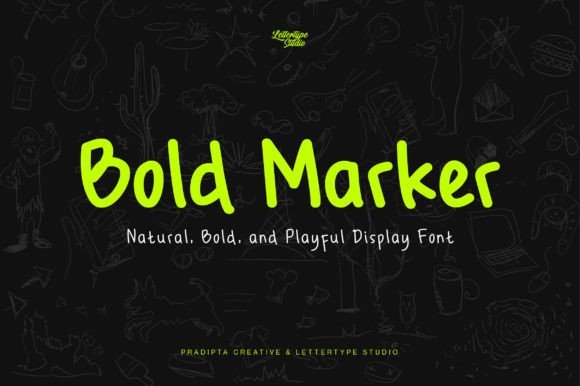
When Words Make a Statement
Have you ever found yourself scribbling down an idea in a notebook, only to have it leap off the page in a way that grabs your attention? That’s the magic of a well-chosen font – and the Bold Marker Font is no exception.
This playful display font is the perfect solution for designers looking to add some personality to their projects. With its casual, bold, and natural vibe, the Bold Marker Font is ideal for anything from headlines and logotypes to apparel and packaging. Whether you’re creating a brand identity, designing an invitation, or crafting an advertisement, this versatile typeface has got you covered.
Bold Marker Font Key Features
- Font Family: A unique, hand-drawn font designed to resemble a bold marker.
- Unique Characteristics: Features a distinctive, bold line style and a range of stylistic alternates to enhance design versatility.
Designer Review: Bold Marker Font
When I first laid eyes on the Bold Marker Font, I was immediately drawn to its edgy, bold aesthetic. It’s the perfect font for making a statement, and I can see it being used for anything from trendy advertising to edgy editorial design. ✨ The font’s unique blend of modern and retro elements makes it a standout in any design project.
One of the things that really works well with this font is its versatility. It’s available in a range of weights, from light to extra-bold, which makes it easy to use in a variety of contexts. ✨ The font also includes a range of glyphs and ligatures, which can add an extra layer of sophistication to your designs.
However, there are a few limitations to consider. ⚠️ For one thing, the font may be a bit too bold for some applications, particularly if you’re working with text-heavy designs. Additionally, the font may not be as legible at smaller sizes, which could make it difficult to use in certain contexts.
Overall, I’d say that the Bold Marker Font is a solid choice for designers who want to add some edge to their projects. While it may not be perfect for every application, it’s definitely worth considering for anyone looking to make a statement.
- Edgy, bold aesthetic
- Available in a range of weights
- Includes glyphs and ligatures
- May be too bold for some applications
- May not be as legible at smaller sizes
The Bold Marker font is particularly effective for creating eye-catching headings and titles.
The Bold Marker font is ideal for creating bold, graffiti-style text effects.
The Bold Marker font is great for adding a touch of personality to your presentations and documents.
Experiment with different font sizes and colors to create a bold, eye-catching effect.
Combine the Bold Marker font with other creative fonts for a unique look.
Use the font to create a focal point in your design, drawing attention to important information.
The Bold Marker font is ideal for creating bold, eye-catching headings and titles.
It’s also great for adding a touch of personality to presentations and documents.
Use the font to create graffiti-style text effects or to add a creative twist to your designs.
Alternatives to Bold Marker Font for Designers
Great Vibes Font is a modern, elegant font perfect for headings and titles. It’s ideal for use in logos, branding materials, and digital products. When to use: Logos, branding materials, and digital products. It compares to Bold Marker Font as it has a more refined and sophisticated look, making it suitable for corporate and professional designs.
Pacifico Font is a beautiful, cursive font that adds a touch of elegance to any design. It’s ideal for use in invitations, wedding materials, and other creative projects. When to use: Invitations, wedding materials, and other creative projects. It compares to Bold Marker Font as it has a softer and more delicate look, making it suitable for romantic and whimsical designs.
Q: Can I use Bold Marker Font for digital displays, such as websites or mobile apps?
While Bold Marker Font is designed for print use, it can also be effective for digital displays. However, keep in mind that the font’s bold and marker-like characteristics may not translate well to small digital screens. For digital displays, consider using a font with a more modern and clean design, such as Open Sans or Lato, to ensure optimal readability and legibility.